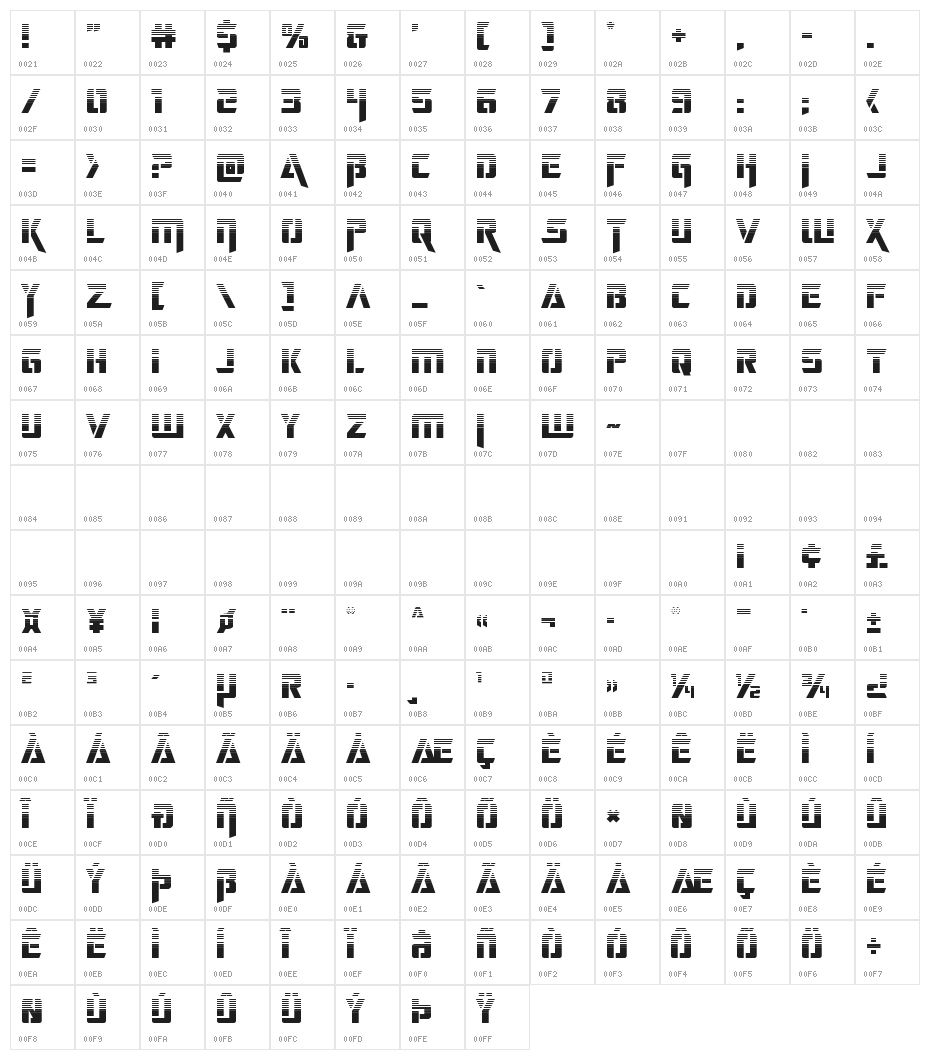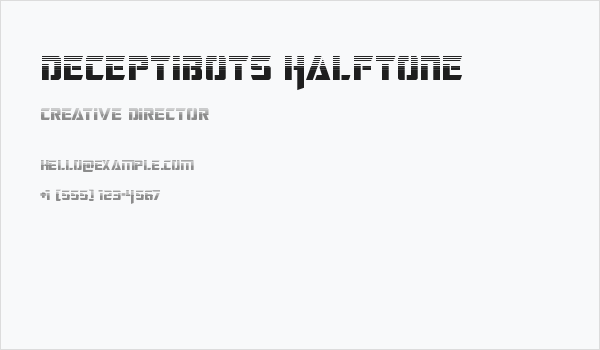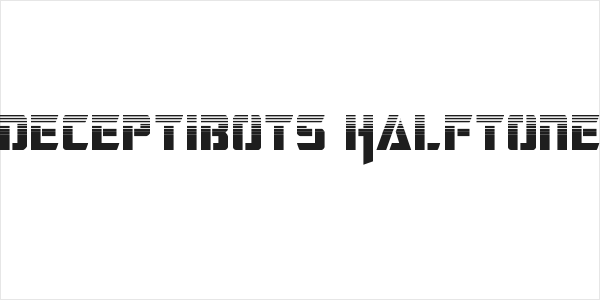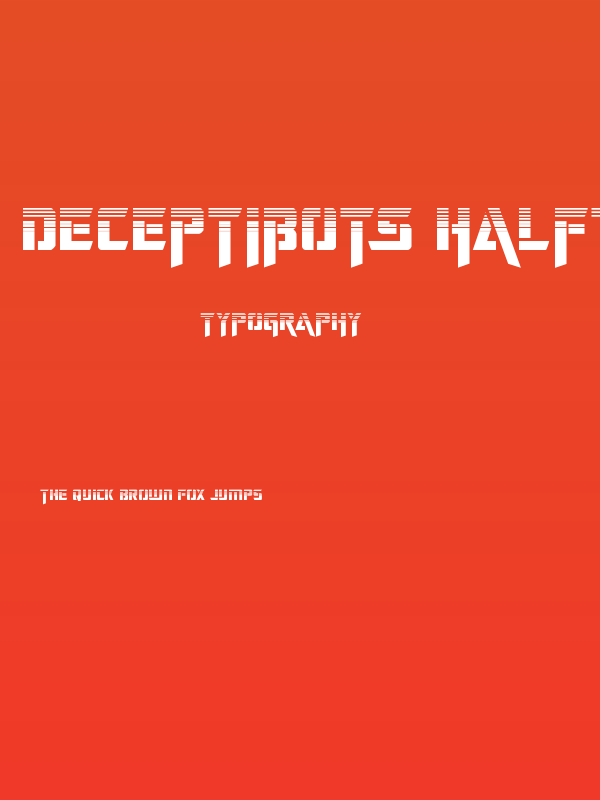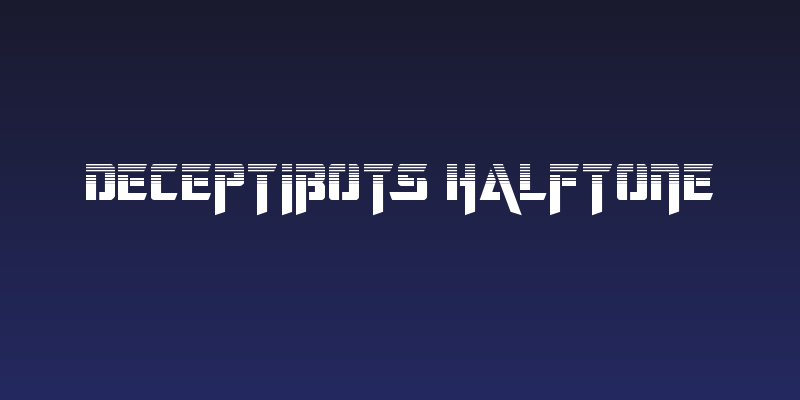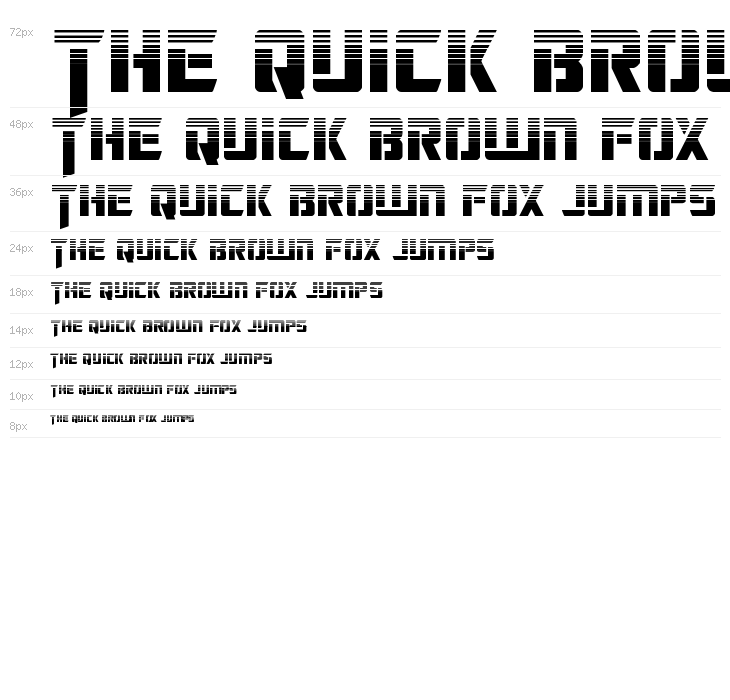
Deceptibots Halftone Font
Deceptibots Halftone Description
This font features a bold, futuristic design with a halftone effect that gives it a unique, digital appearance. The characters are constructed with sharp angles and geometric shapes, creating a sense of movement and energy. The halftone pattern adds depth and texture, making it stand out in any design. The uppercase and lowercase letters maintain a consistent style, with the numbers and special characters complementing the overall aesthetic. This font is ideal for projects that require a modern, tech-inspired look.
| Overall Style | Futuristic, Tech-inspired |
| Proposed Projects | Ideal for sci-fi themed designs, tech branding, video game titles, and futuristic posters. |